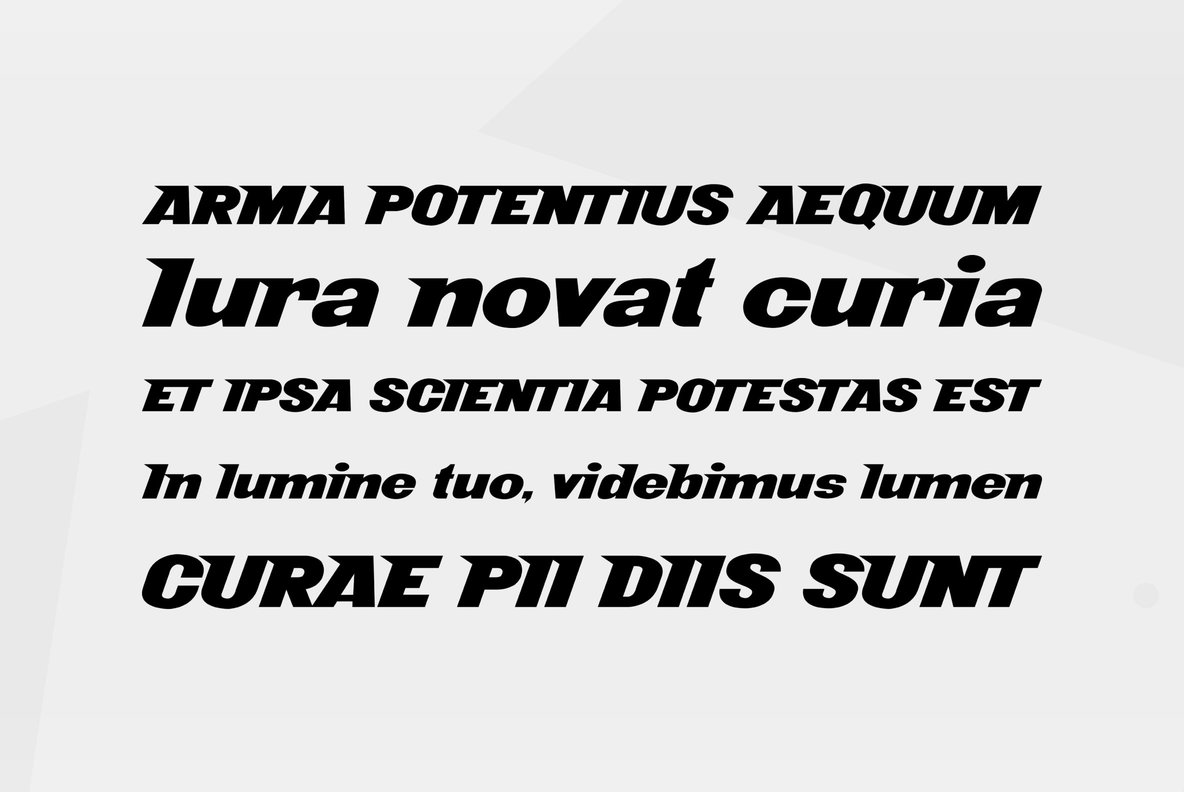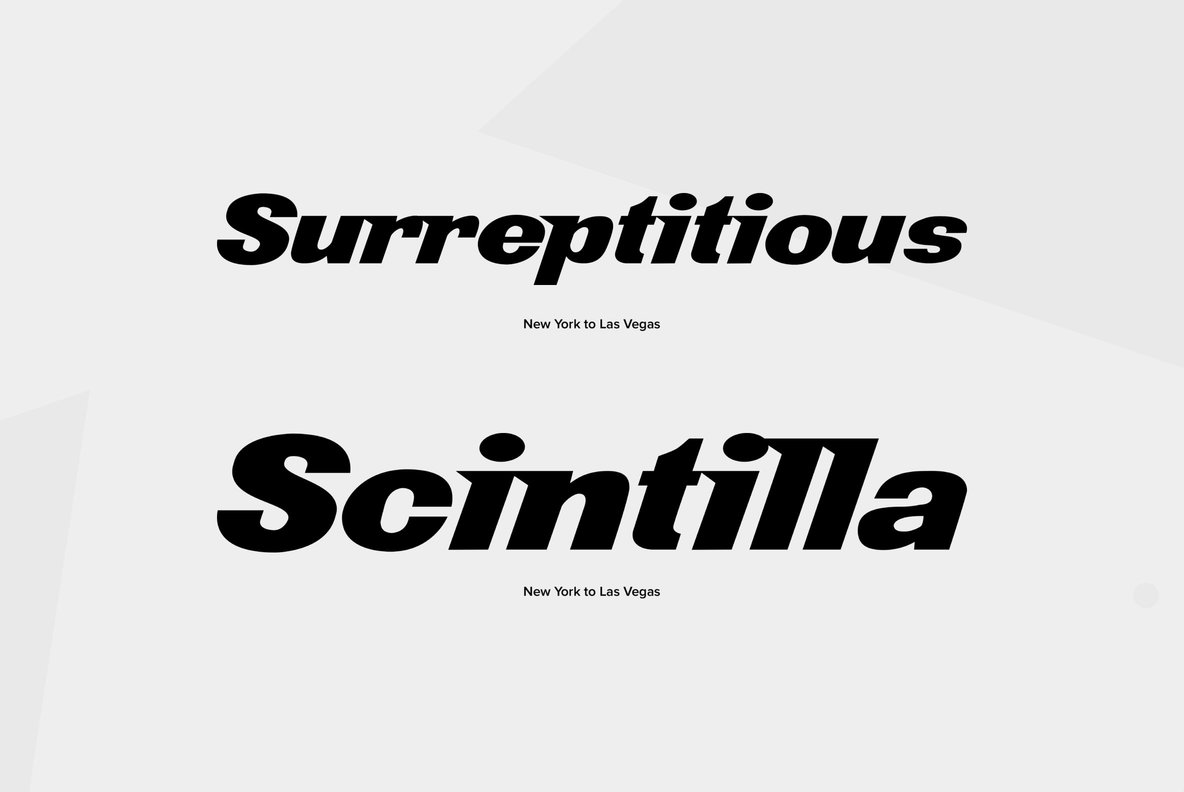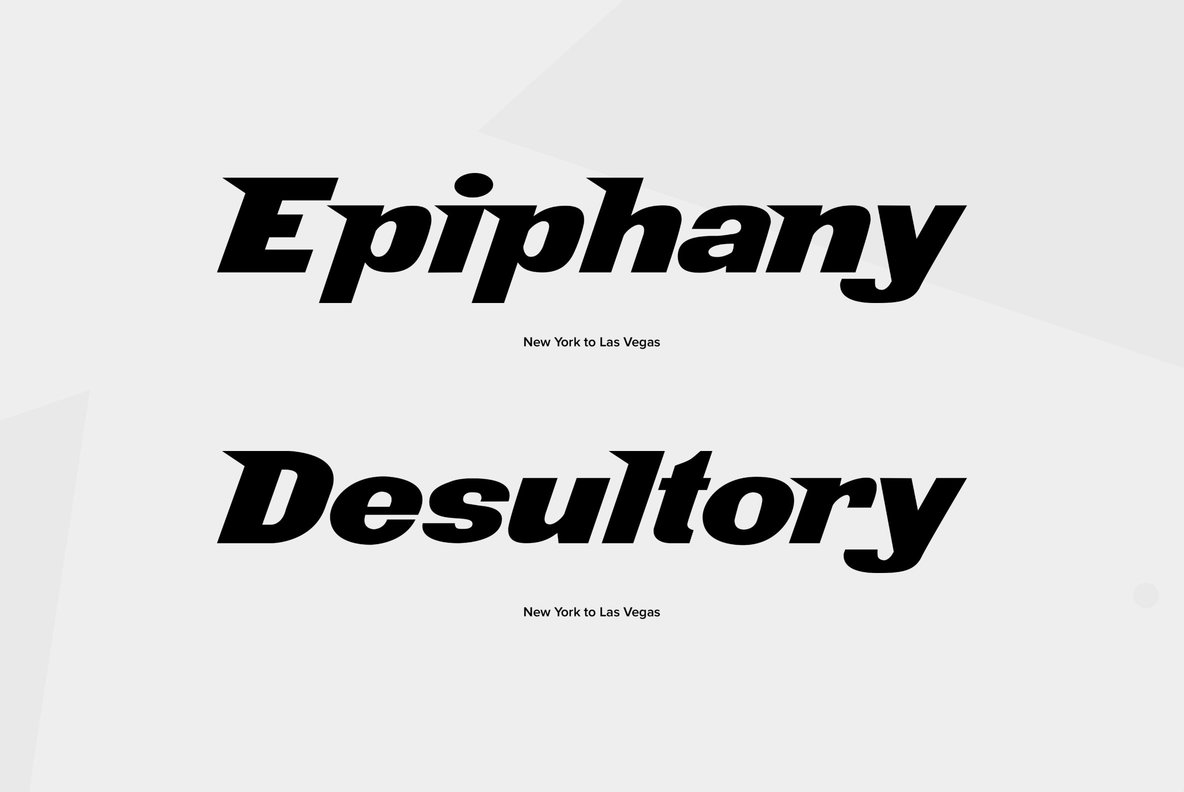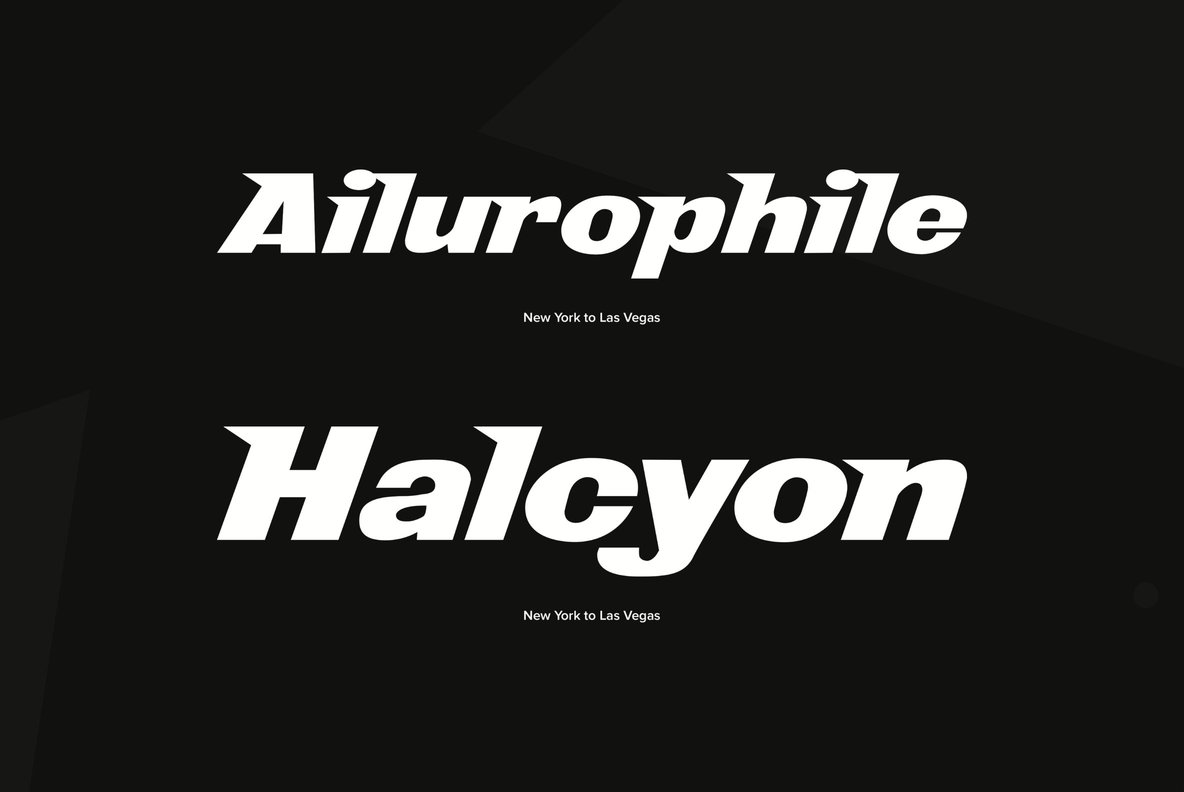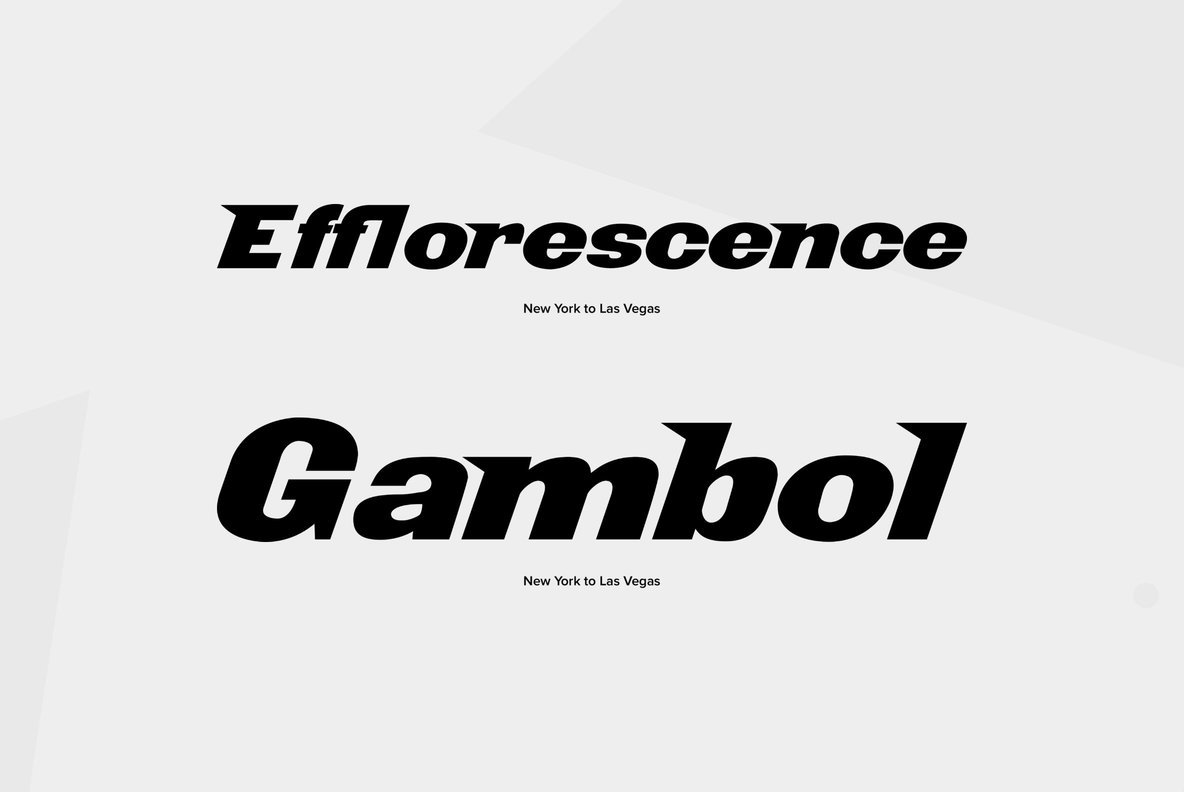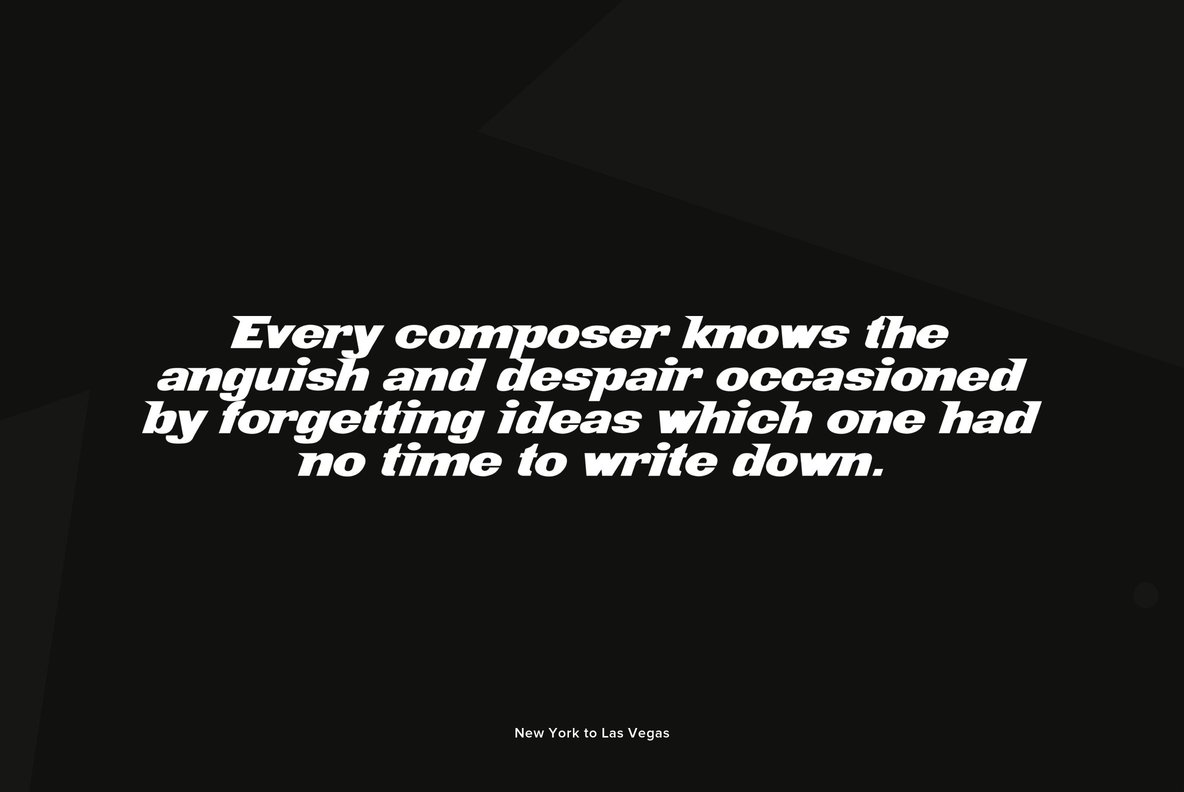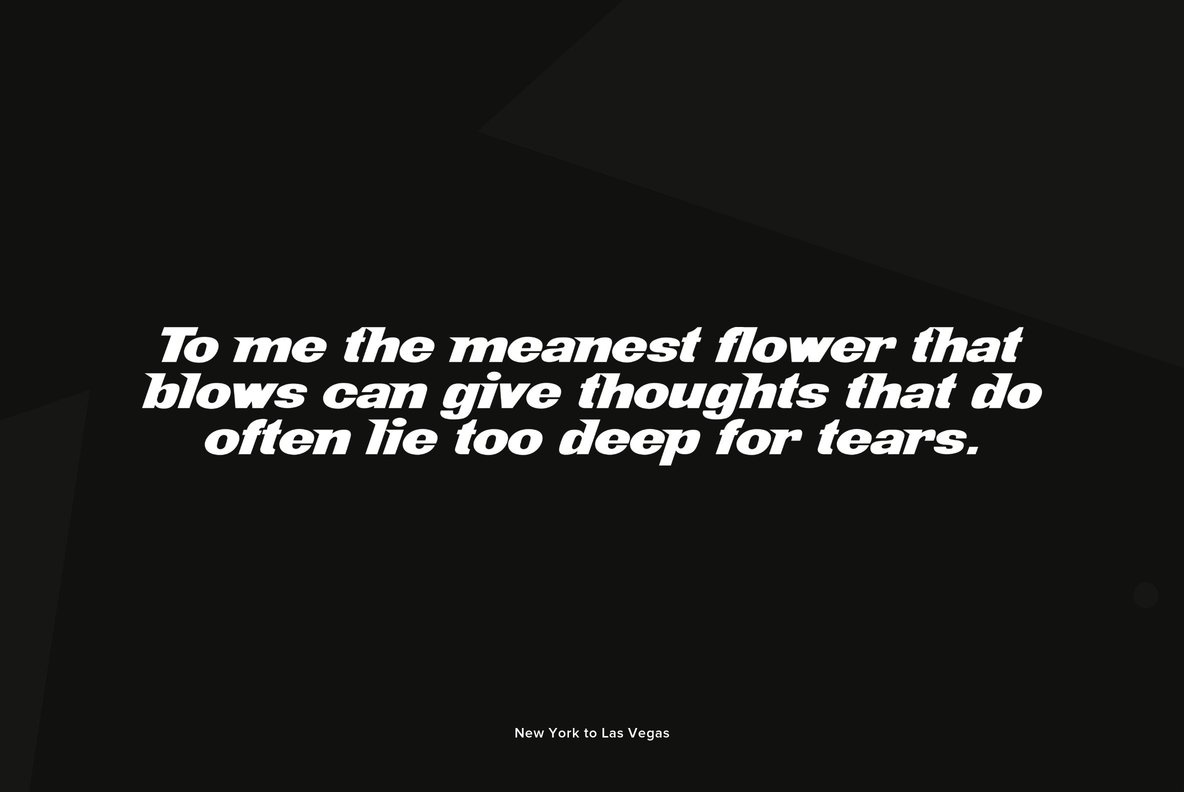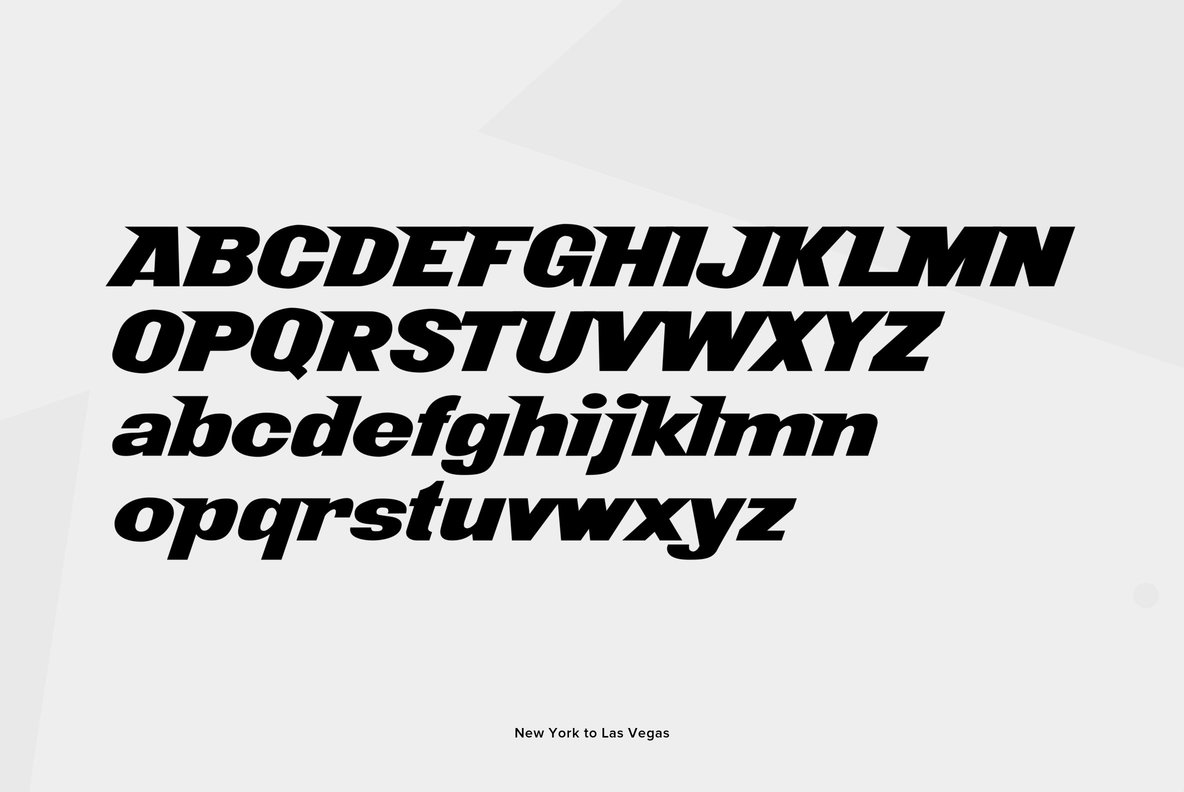
No red-eye's here, we're talking Vegas baby! All night on Pan-Am this speedy serif gets you there!
New York to Las Vegas New York to Las Vegas
No red-eye's here, we're talking Vegas baby! All night on Pan-Am this speedy serif gets you there!